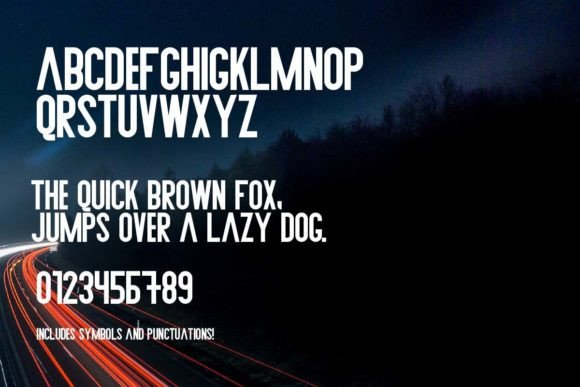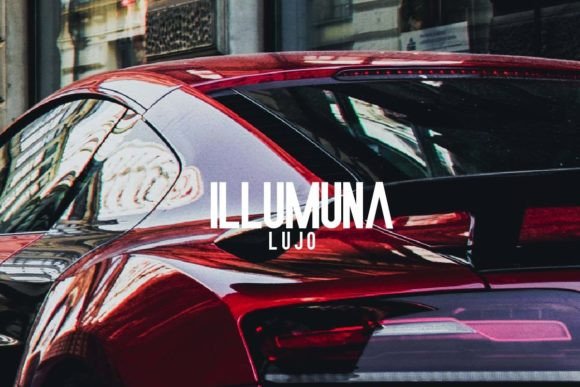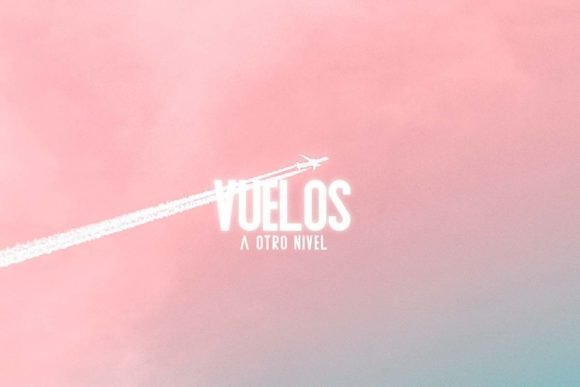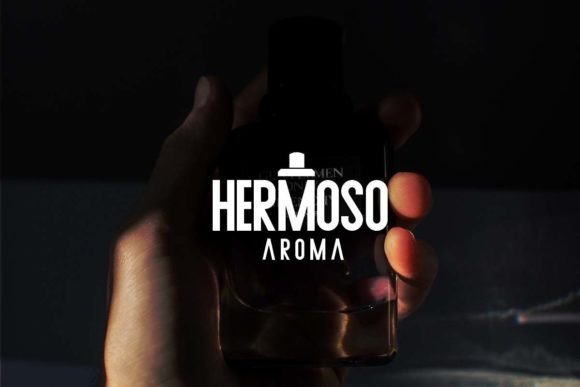
Have you ever stared at a blank canvas, feeling the weight of a deadline looming over you, and suddenly a spark of inspiration strikes? For designers, those moments of clarity are what make all the hard work worth it. And when it comes to bringing your vision to life, the right font can make all the difference. That’s where Bakkar’s Tight Sans Font comes in – a simple yet powerful sans serif font that adds a touch of modern sophistication to any project.
Bakkar’s Tight Sans Font is more than just a font – it’s a trusted companion for designers who demand results. With its clean lines and minimalist aesthetic, it’s the perfect choice for anyone looking to add a professional touch to their work. Whether you’re designing a logo, brochure, or website, Bakkar’s Tight Sans Font is sure to deliver. Its versatility and ease of use make it a valuable asset for designers of all levels.
Bakkar’s Tight Sans Font Key Features
- Unique Characteristics: The font features a unique blend of modern and minimalist design elements, with a tight, condensed character set that makes it ideal for use in headlines, titles, and other display typography.
Bakkar’s Tight Sans Font Review
Overall, I think Bakkar’s Tight Sans Font is a solid addition to any designer’s toolkit. Here are some things I think work well: ✨
- It’s highly legible, even at small font sizes, making it perfect for digital interfaces.
- The font is highly customizable, with a wide range of font weights and styles available.
- It’s a great choice for body text, as it’s easy to read and understand.
However, I do have a few reservations: ⚠️
- The font can feel a bit sterile and lacking in personality, which may not be ideal for branding or design projects where a unique look is required.
- The font’s versatility can also be a limitation, as it’s not particularly well-suited for display or headline use.
Overall, I think Bakkar’s Tight Sans Font is a reliable choice for designers who need a clean and legible font for body text. It’s not going to win any awards for originality or flair, but it gets the job done. If you’re looking for a font that’s easy to read and customize, it’s definitely worth considering.
Tips for Getting the Most Out of Bakkar’s Tight Sans Font
For optimal results, use Bakkar’s Tight Sans Font in combination with a bold or italic font to create visual interest.
Experiment with different font sizes and colors to create a unique visual identity.
Bakkar’s Tight Sans Font is ideal for:
- Body text in digital products and interfaces
Alternatives to Bakkar’s Tight Sans Font
Montserrat is a modern sans-serif font designed by Julieta Ulanovsky. It’s ideal for digital interfaces and publications where readability is crucial. Montserrat is more geometric and has a cleaner design compared to Bakkar’s Tight Sans Font, making it a better choice for modern and minimalist designs.
Open Sans is a clean and modern sans-serif font designed by Steve Matteson. It’s highly legible and works well for body text, making it a popular choice for digital media. Open Sans has a more rounded design compared to Bakkar’s Tight Sans Font, giving it a friendlier and approachable feel.
Inter is a modern sans-serif font designed by Rasmus Andersson. It’s highly legible and works well for digital interfaces and publications. Inter has a more condensed design compared to Bakkar’s Tight Sans Font, making it a better choice for tight spaces and headlines.
Avenir Next is a modern sans-serif font designed by Jean-François Porchez. It’s highly legible and works well for body text and digital interfaces. Avenir Next has a more elegant and refined design compared to Bakkar’s Tight Sans Font, making it a better choice for high-end and luxury designs.